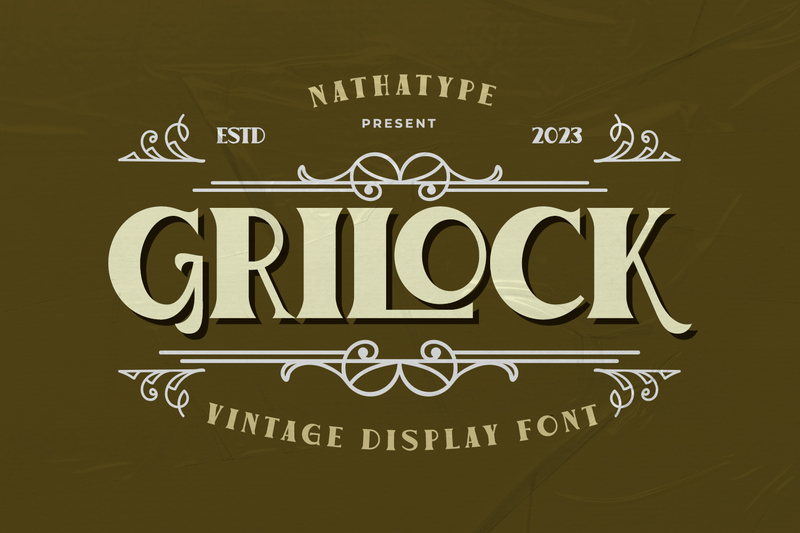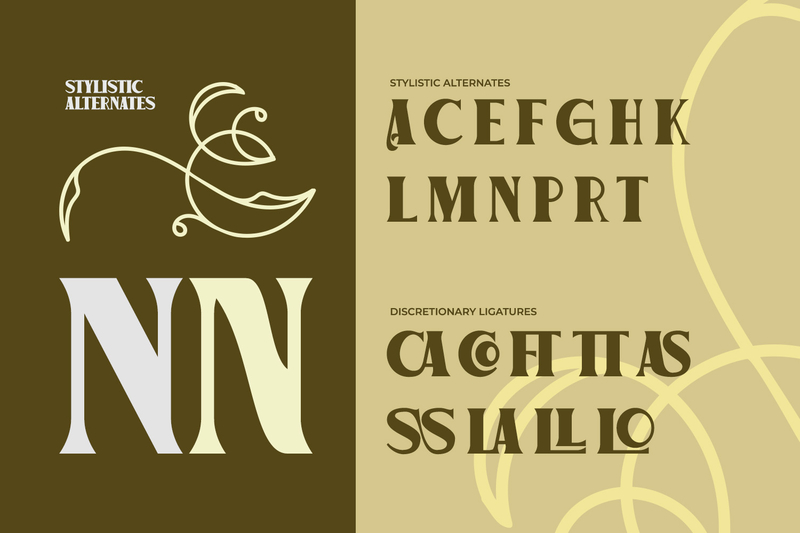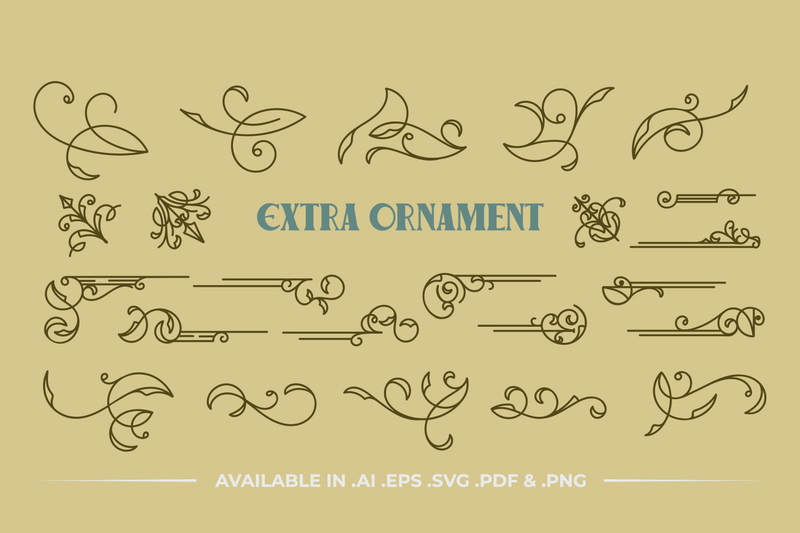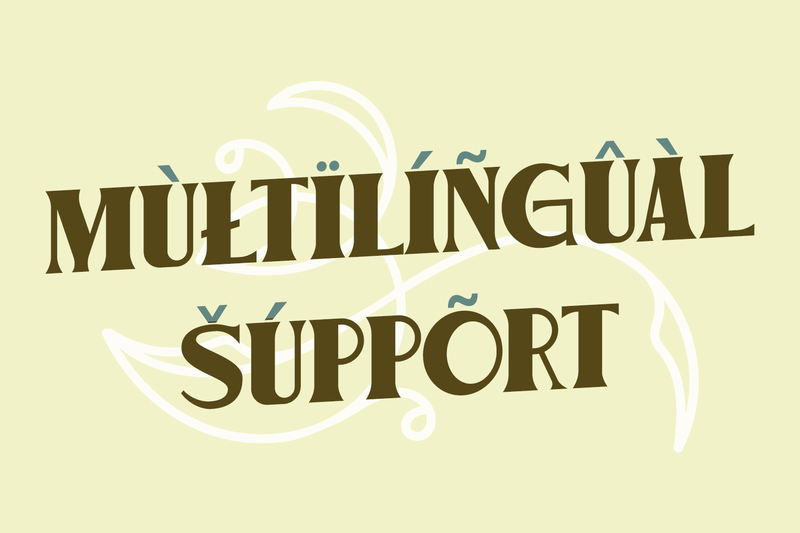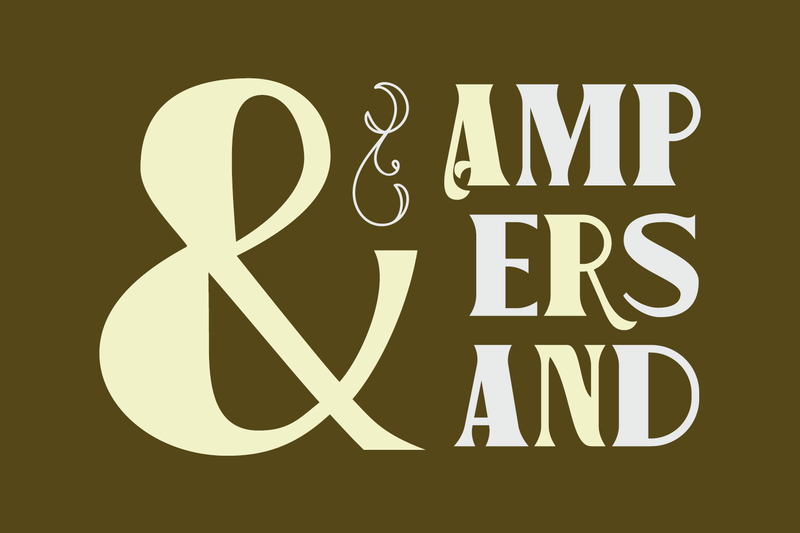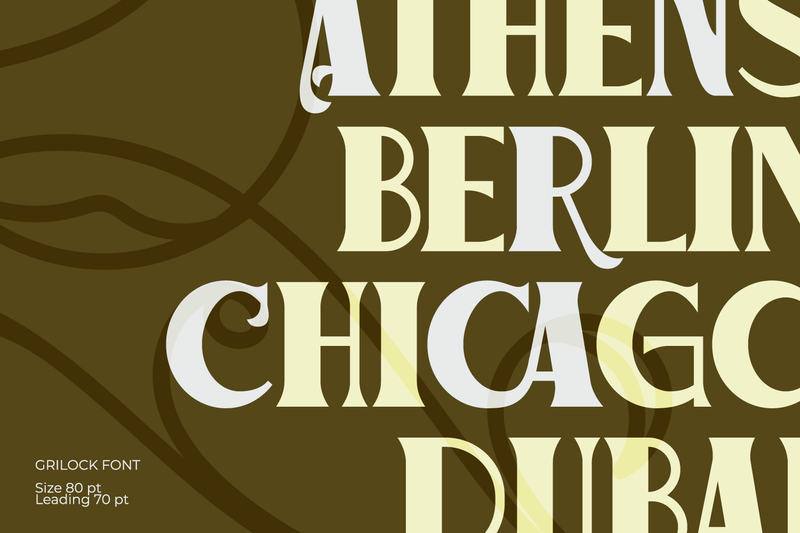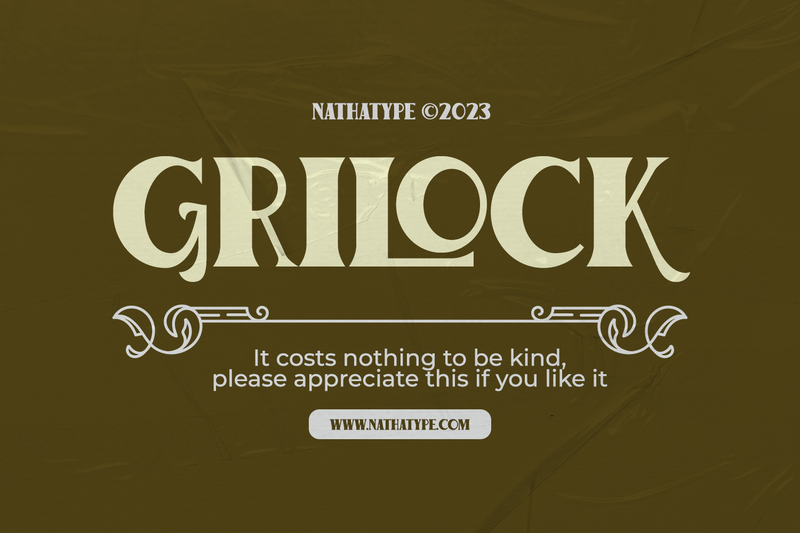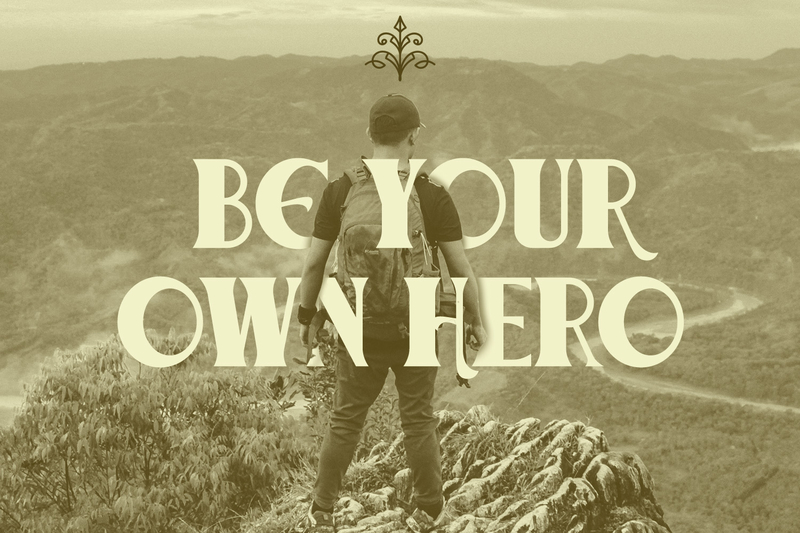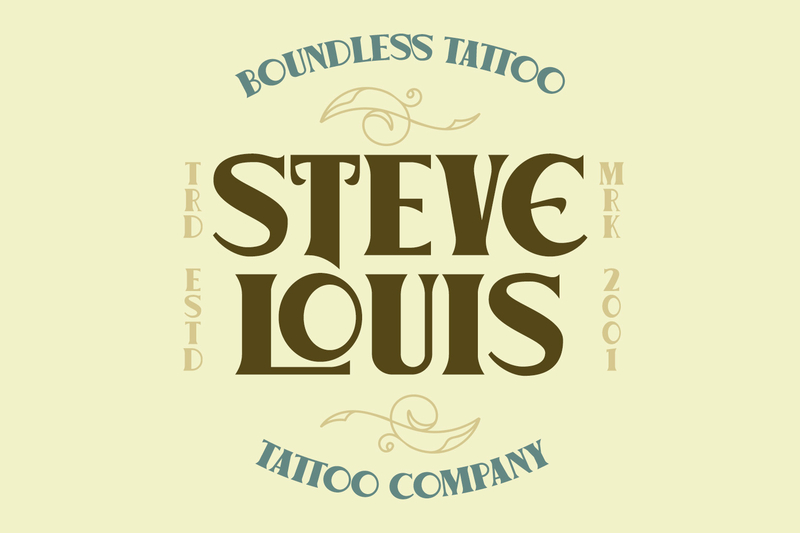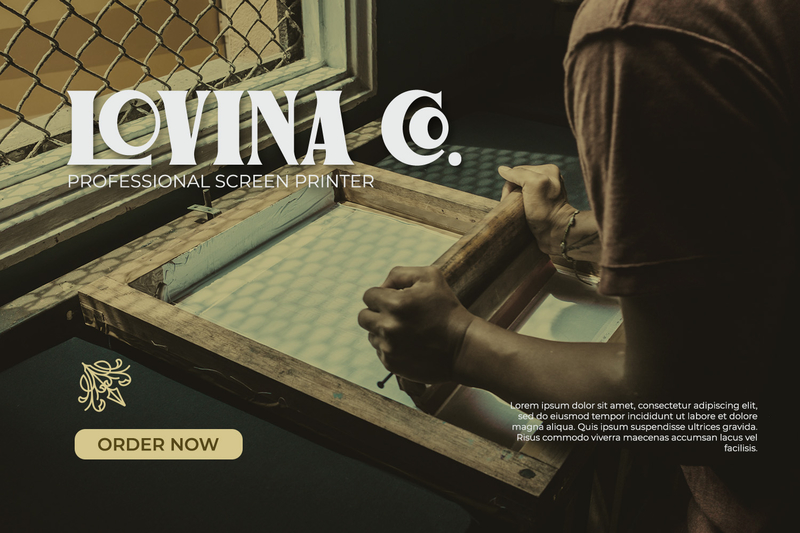
Grilock
Prepare to embark on a typographic journey through the past with Grilock, an uppercase display font that merges vintage aesthetics. What truly sets Grilock apart is its deliberate embrace of irregularity. This irregularity imbues Grilock with character and individuality, reminiscent of vintage handcrafted signage.
The relatively sharp corners of Grilock add a touch of edginess to the font, creating a sense of boldness and impact. These sharp angles provide visual contrast against the uneven thickness, resulting in a font that is both striking and memorable. In addition, Grilock gives ornaments as a special bonus. Enjoy the features here.
• Alternates
• Ligatures
• Multilingual Supports
• PUA Encoded
• Numerals and Punctuations
Grilock fits in headlines, logos, posters, flyers, branding materials, print media, editorial layouts, and many more. Find out more ways to use this font by taking a look at the font preview.